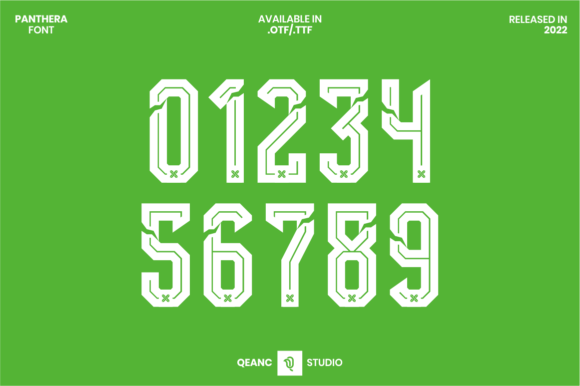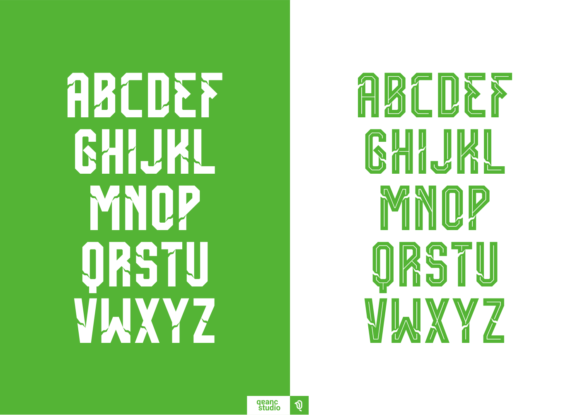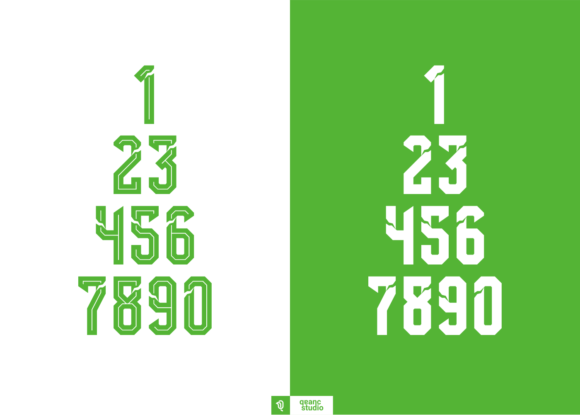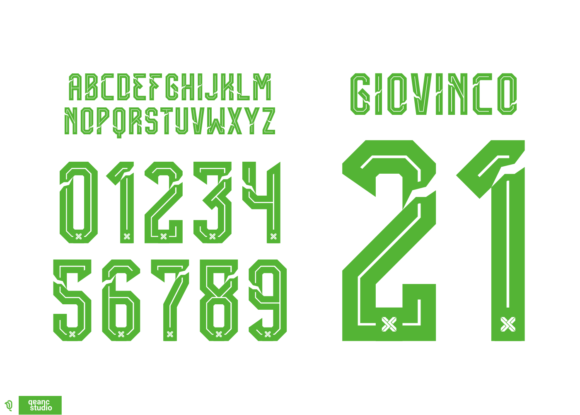
Panthera Font: A Bold Display Font for Sports Logos & Posters!
About the Panthera Font
From logos to headlines, the Panthera Font is the perfect choice for making a lasting impression. Panthera is a cool and modern display inspired by football. It is the perfect font for any sports or racing-themed projects, such as logos, posters, t-shirts, and much more. Add this font to your creative ideas and notice how it will make them stand out!
Panthera excels as a display typeface for headlines, posters, and branding applications where a bold, energetic statement is desired. Its strong forms work particularly well in large sizes, making it ideal for impactful titles or logos for sports teams, automotive brands, or other projects with a dynamic feel. Avoid using Panthera for body text or UI elements; its weight and condensed forms are unsuitable for extended reading.
Consider pairing Panthera with a clean sans-serif like Open Sans for body copy to provide readability and contrast. For a more sophisticated look, a classic serif such as Garamond or a geometric sans-serif like Futura could complement its modern aesthetic. Pairing it with a script font should be approached cautiously, selecting a script with similarly bold strokes to maintain visual balance.
Panthera’s overall personality is aggressive and powerful, conveying speed and strength. It’s a highly versatile choice for projects that demand a bold, modern, and dynamic visual impact.
Panthera Font Usage Examples
Panthera Font Example